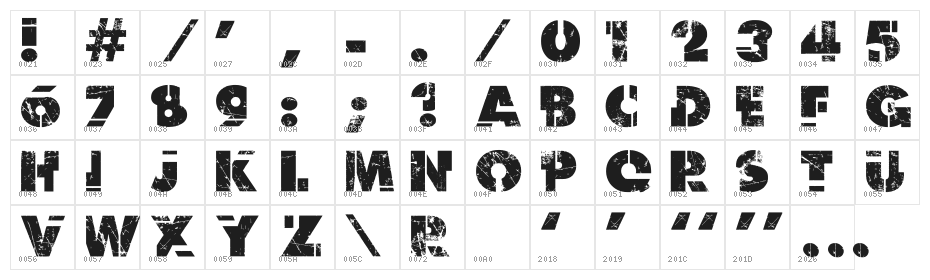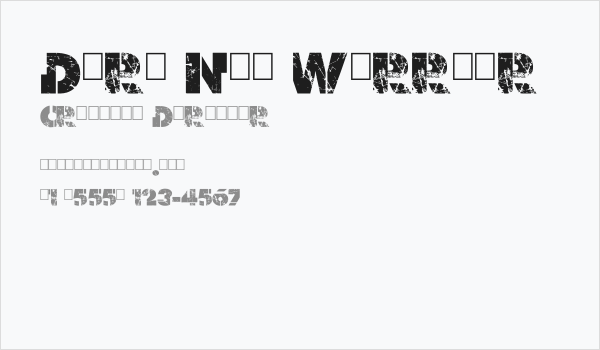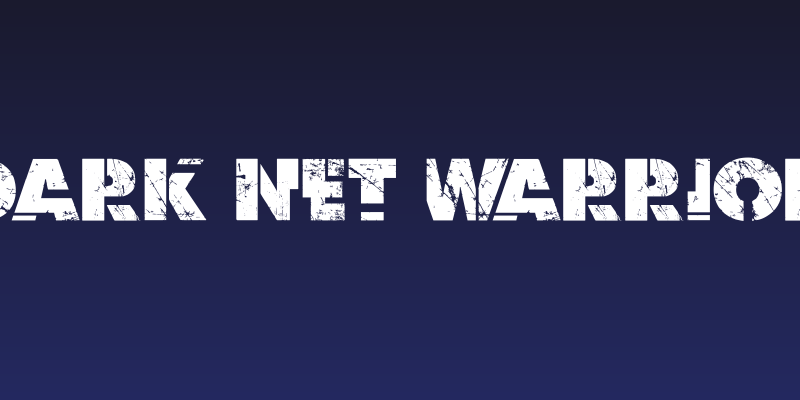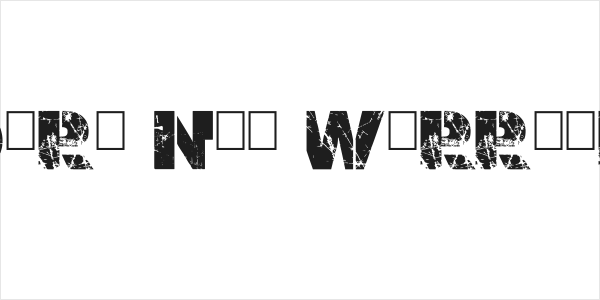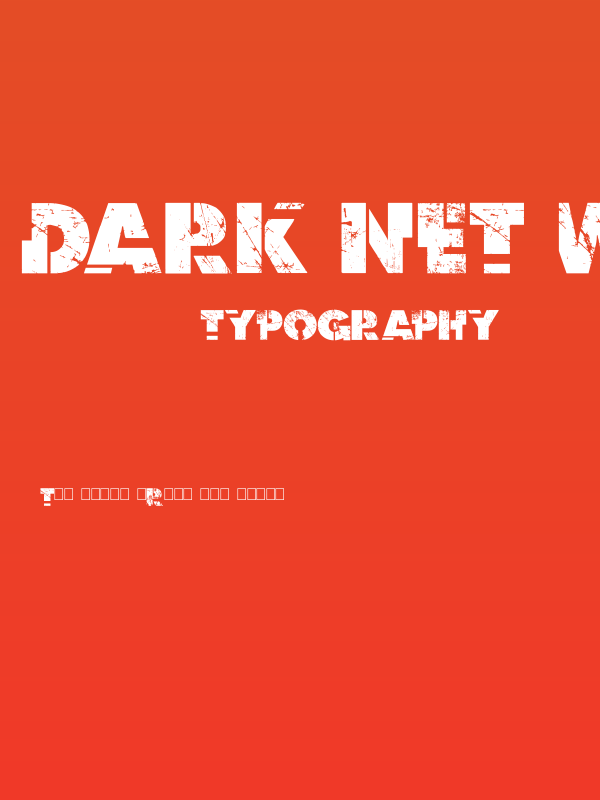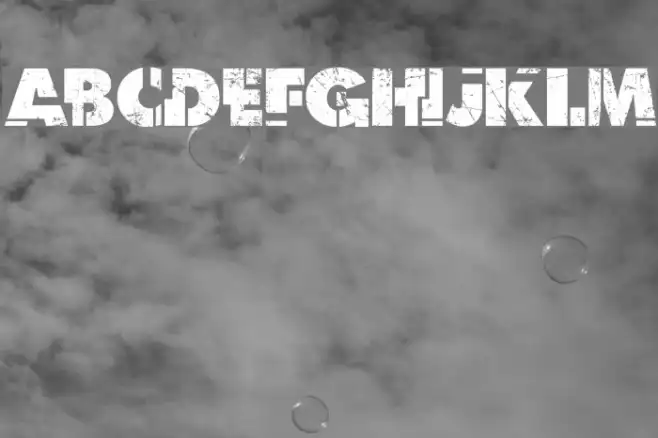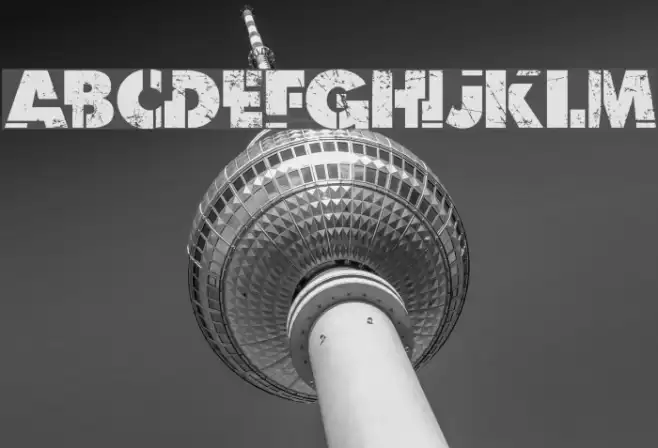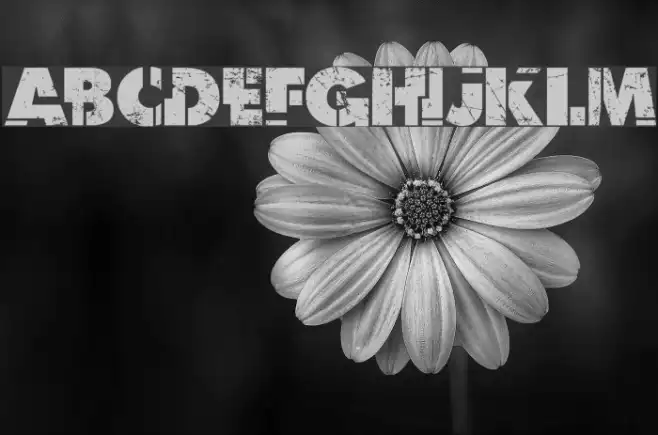
Dark Net Warrior Font
Dark Net Warrior Description
This font features a bold, distressed style with a gritty, textured appearance that gives it a rugged and edgy look. The uppercase letters are prominently displayed with a stencil-like cutout effect, adding to its industrial and urban vibe. The numbers and special characters maintain this distressed aesthetic, making the font suitable for designs that require a raw, impactful presence. The overall design is reminiscent of street art or military stencils, providing a sense of strength and rebellion.
| Overall Style | Urban, Industrial, Edgy |
| Proposed Projects | Ideal for posters, album covers, video game graphics, and branding that requires a strong, edgy look. |